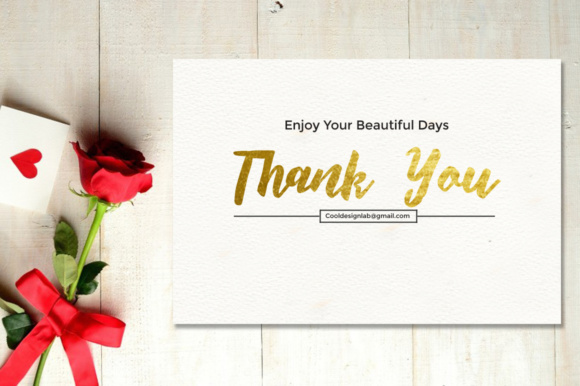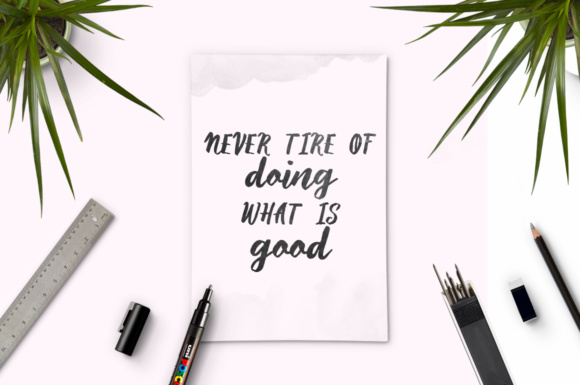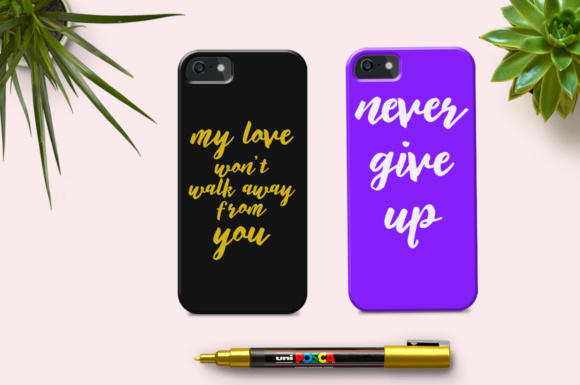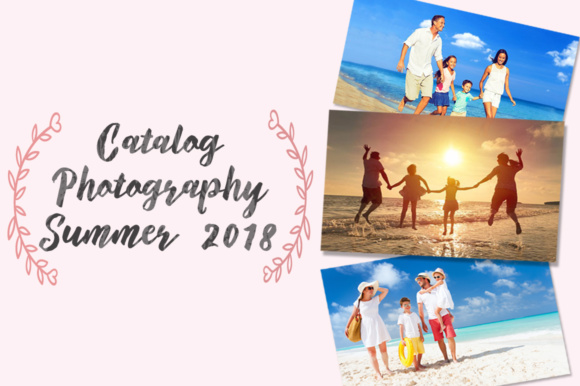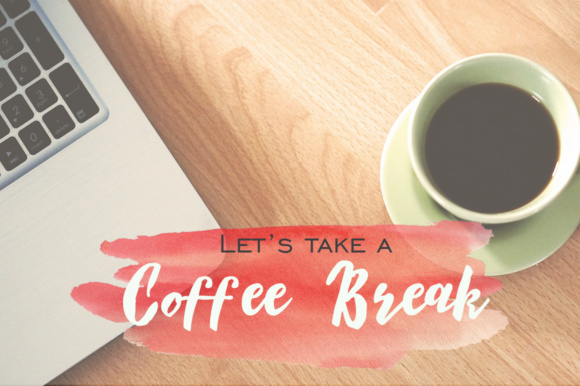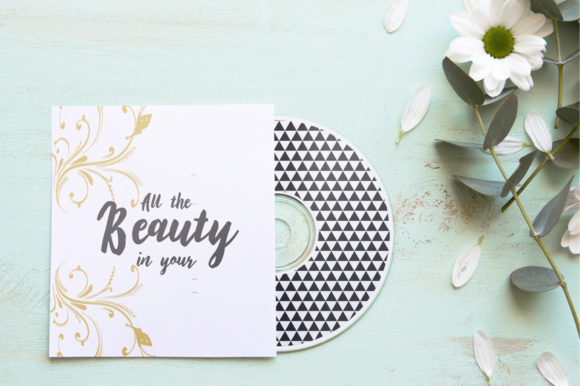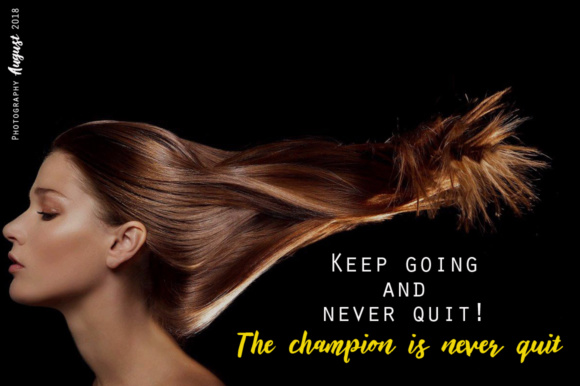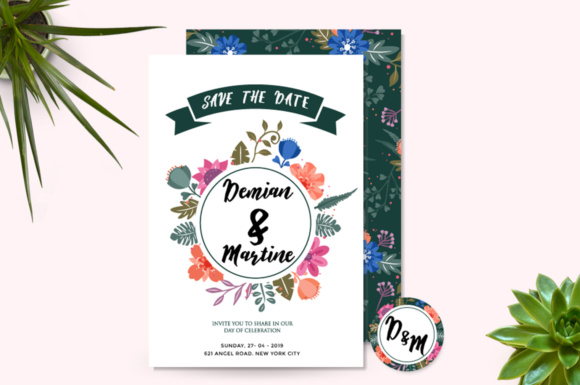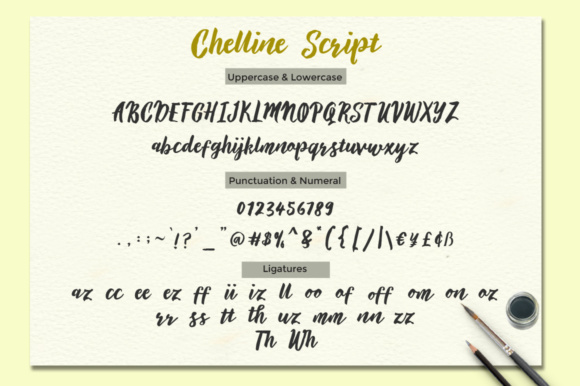
Chelline Script Font
About Chelline Script Font
Chelline is a beautiful script which will give your design an elegant feel. Chelline is perfect for; logos, clothing designs, invitations, brochures, posters, greeting cards, and much more!